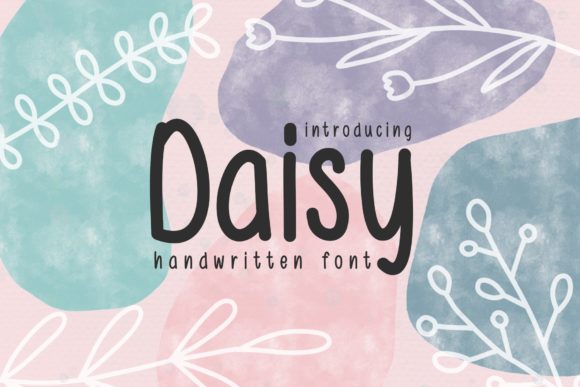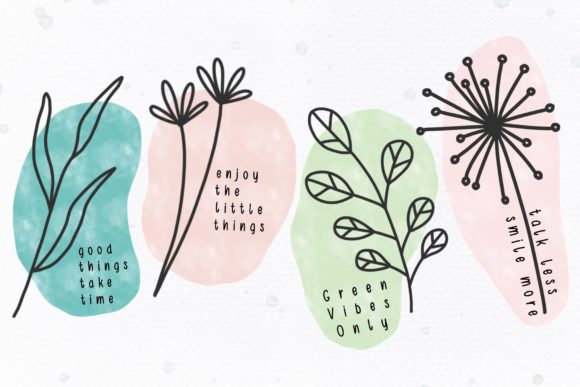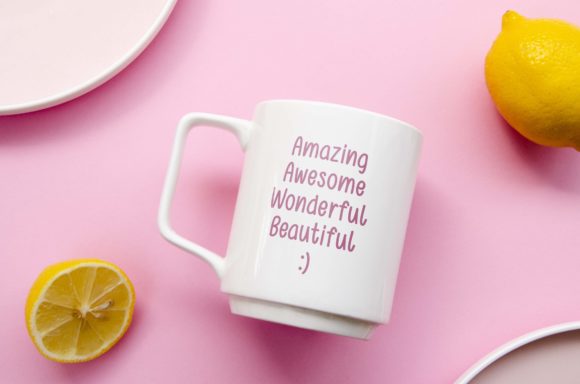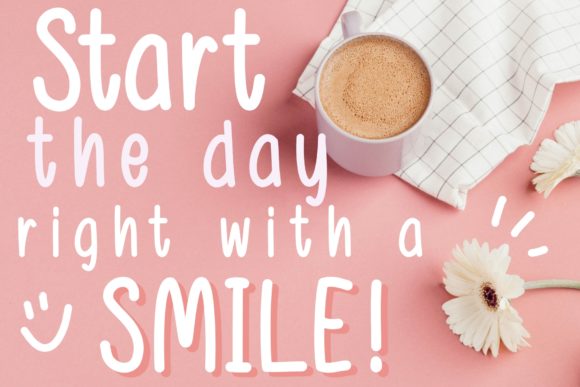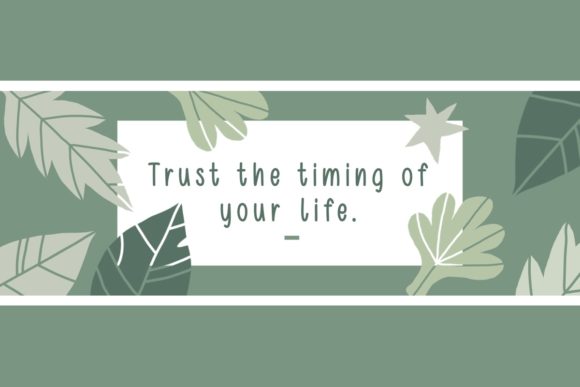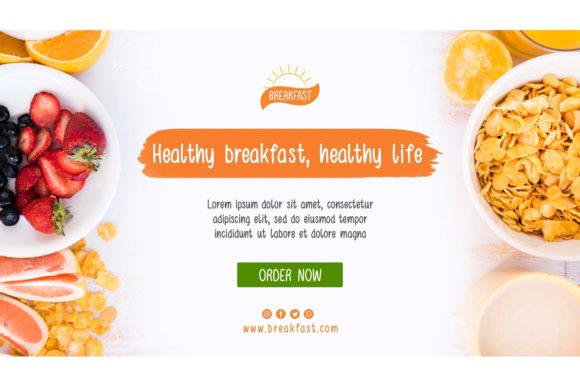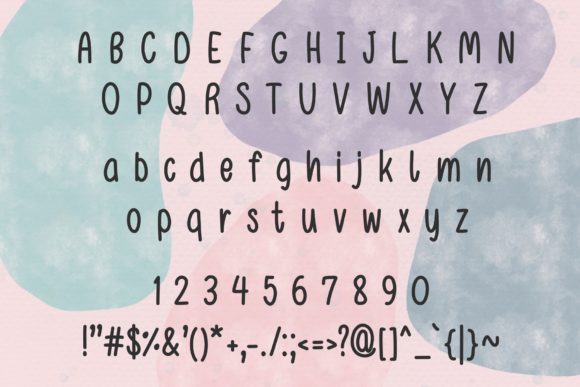
Daisy Font
About Daisy Font
Introducing Daisy, the embodiment of charm and playfulness in the world of fonts. With its delightful and whimsical strokes, Daisy brings a sense of joy and positivity to your designs, making every project a delightful experience.
At first glance, Daisy’s handwritten style captures the essence of carefree creativity. The characters dance across the screen or paper with an air of spontaneity, as if they were penned by a mischievous hand guided by the sheer joy of self-expression. This font is an instant mood-lifter, infusing your designs with a sense of lightheartedness that’s hard to resist.
Daisy’s versatility is one of its standout features. It seamlessly adapts to a wide range of design projects, whether you’re crafting invitations that exude warmth, creating playful social media posts that catch the eye, or fashioning greeting cards that evoke smiles. Its ability to effortlessly transition between different contexts is a testament to its adaptability and universal appeal.
The playful touch that Daisy adds to your designs is nothing short of magical. Each letter, meticulously crafted to maintain its handwritten charm, brings an element of fun and wonder to your projects. Whether you’re working on a children’s book, a brand logo, or a party invitation, Daisy ensures that your audience is greeted with a sense of delight and curiosity.
Daisy’s ability to evoke a sense of nostalgia while maintaining its contemporary flair is truly captivating. It’s reminiscent of the handwritten notes and doodles from childhood, capturing the innocence and spontaneity of those carefree moments. This font transports you back to a time when imagination had no limits and creativity knew no boundaries.
As you delve deeper into Daisy’s collection of characters, you’ll discover its unique and playful alternates. These glyphs offer a creative playground where you can experiment and customize your designs to match your vision. This font’s ability to create various combinations ensures that your projects remain fresh and exciting, each piece carrying a distinct personality of its own.
Daisy’s infectious energy is not only seen but felt. Its lively strokes and curvy forms create a sense of movement and rhythm that adds dynamism to your designs. Whether it’s a logo that radiates positivity or a banner that invites engagement, Daisy’s unique letterforms make sure your message is communicated with enthusiasm.
Fall in love with Daisy’s spirited style, and watch as your designs come alive with an enchanting touch. From the simplest lines to the most intricate creations, this font turns every project into a canvas for boundless imagination. Whether you’re aiming to inspire, uplift, or simply bring a smile to someone’s face, Daisy is your ultimate companion on the journey of creativity.
With Daisy, the ordinary transforms into the extraordinary, and every design becomes a celebration of joy, warmth, and playfulness. Embrace the versatile charm of this font and unleash its magic onto your creative projects, creating experiences that resonate, connect, and leave an indelible mark on the hearts of those who encounter them.